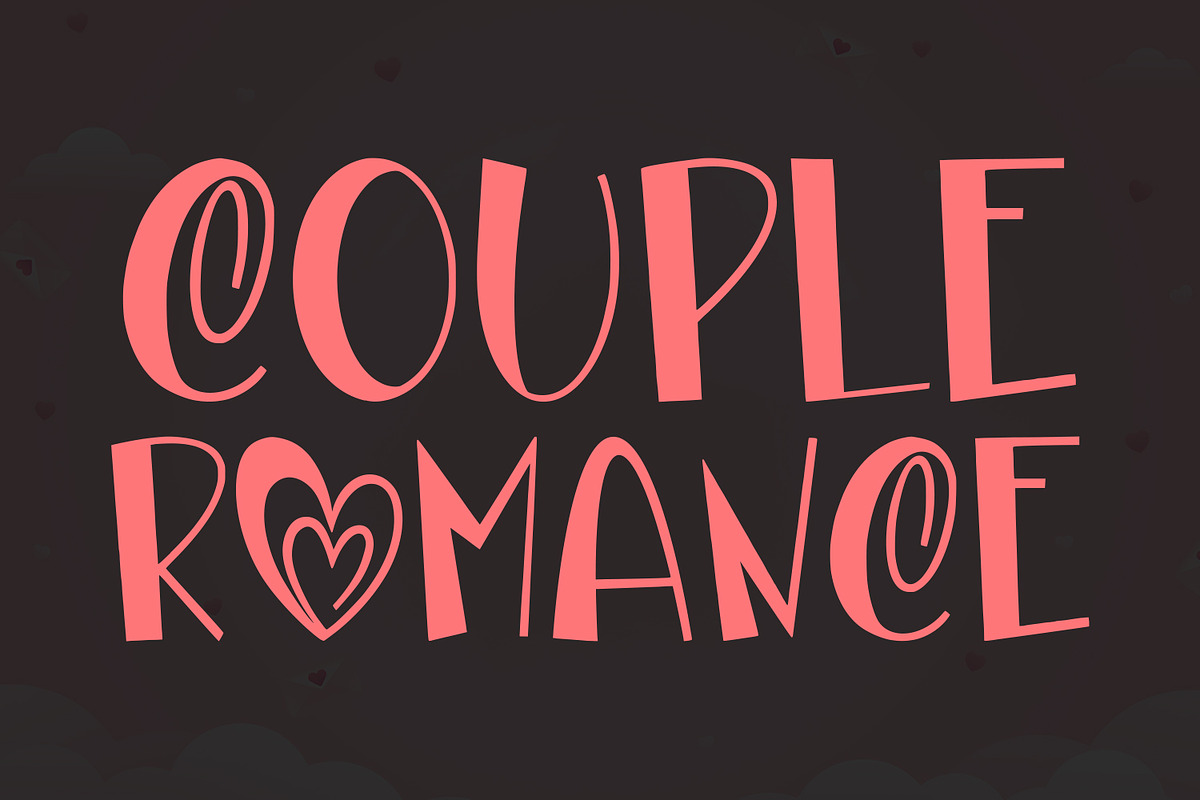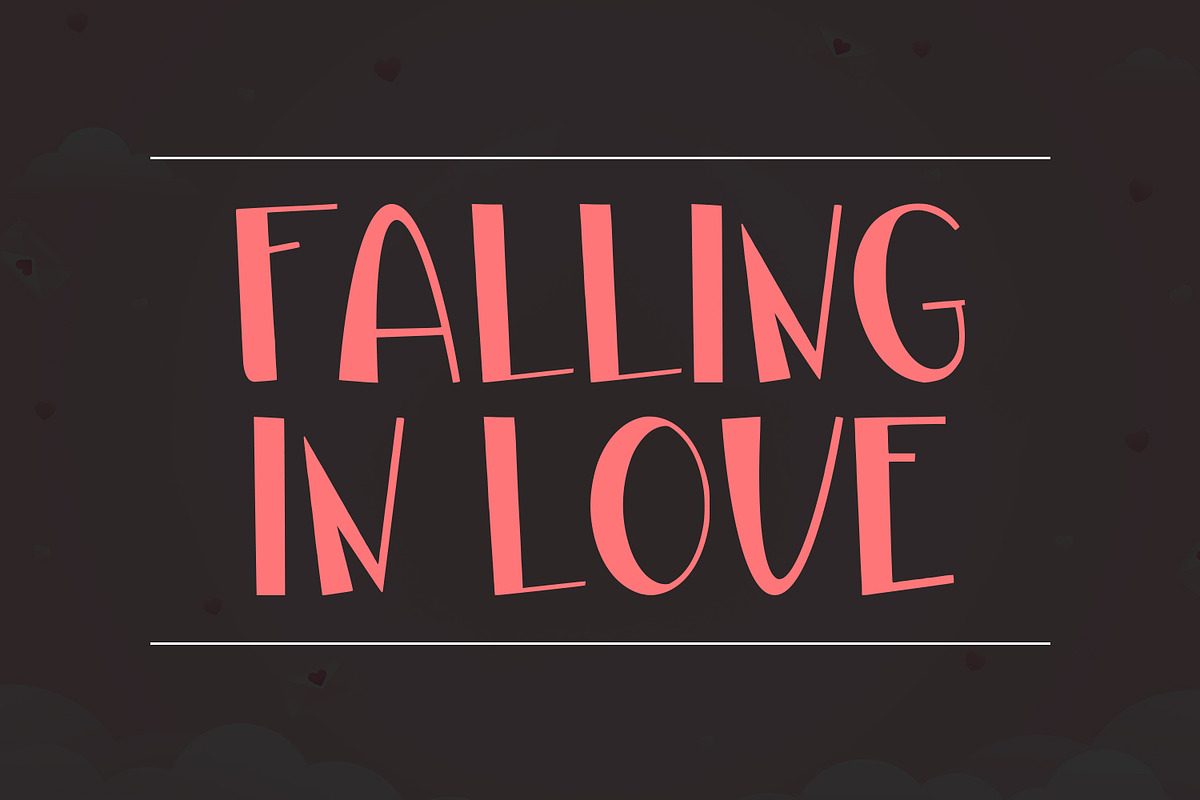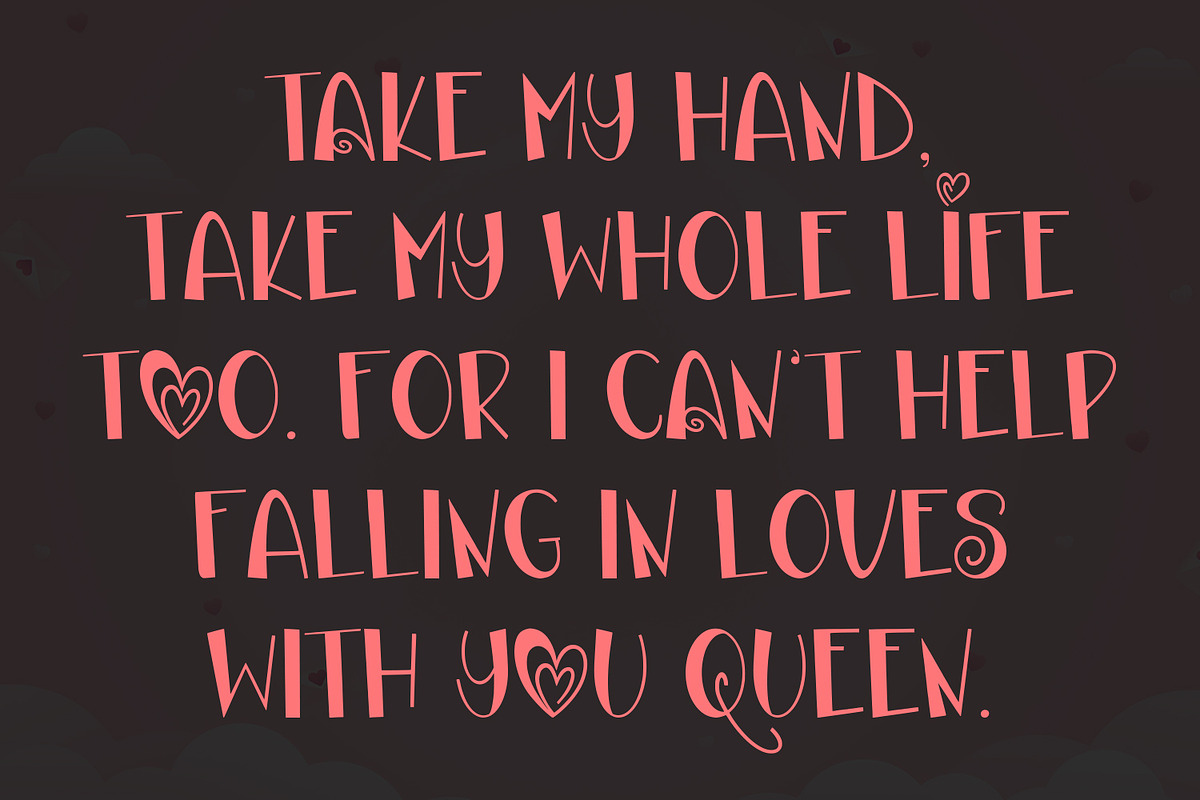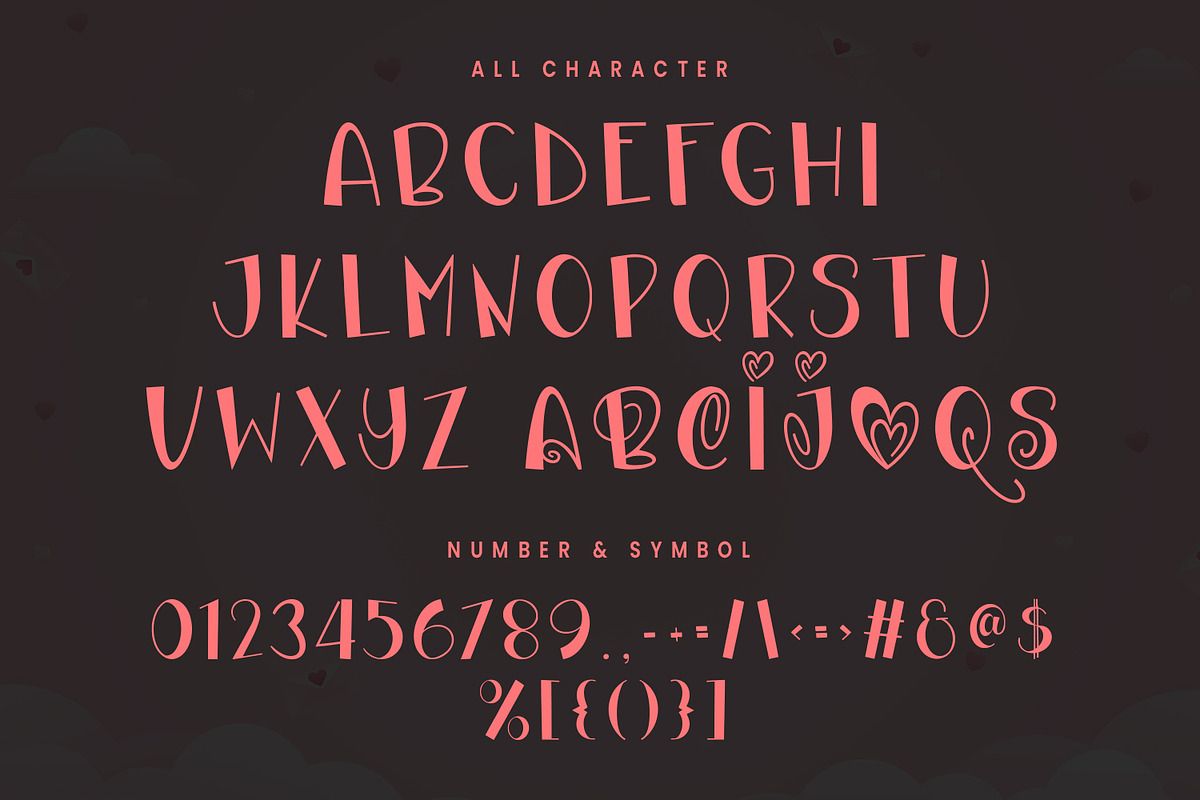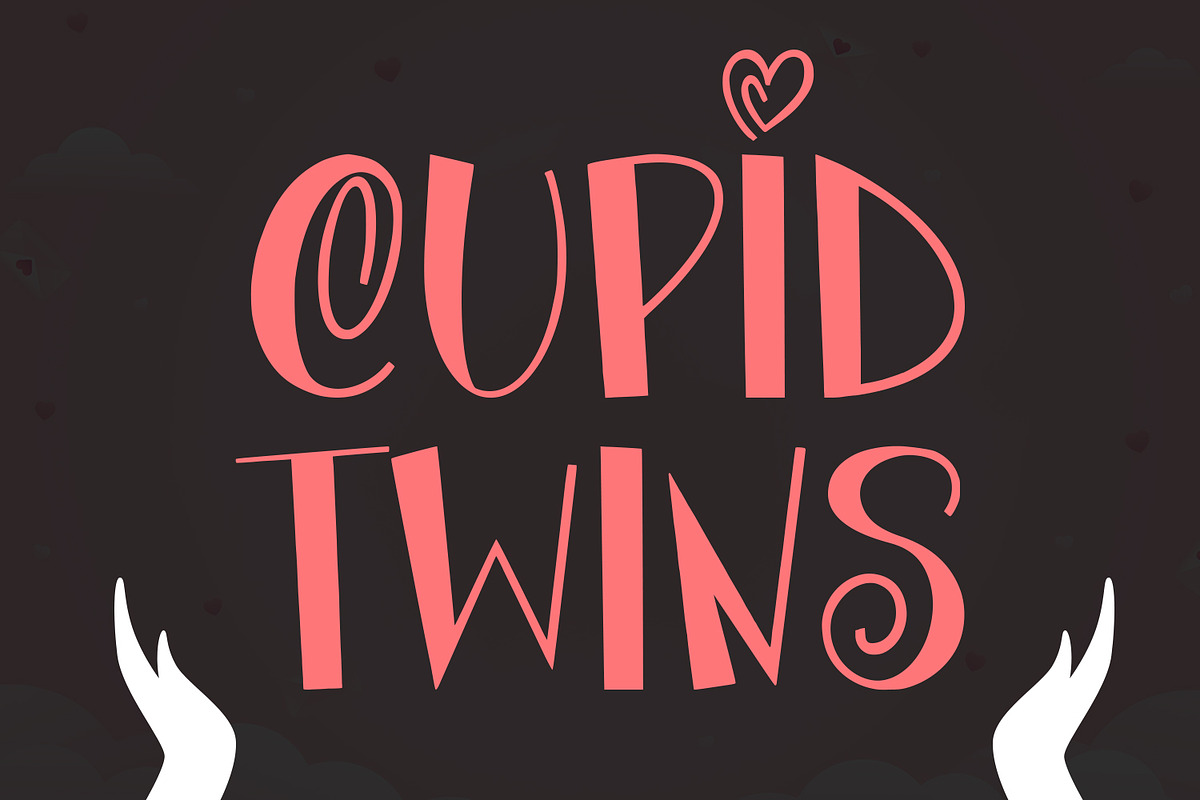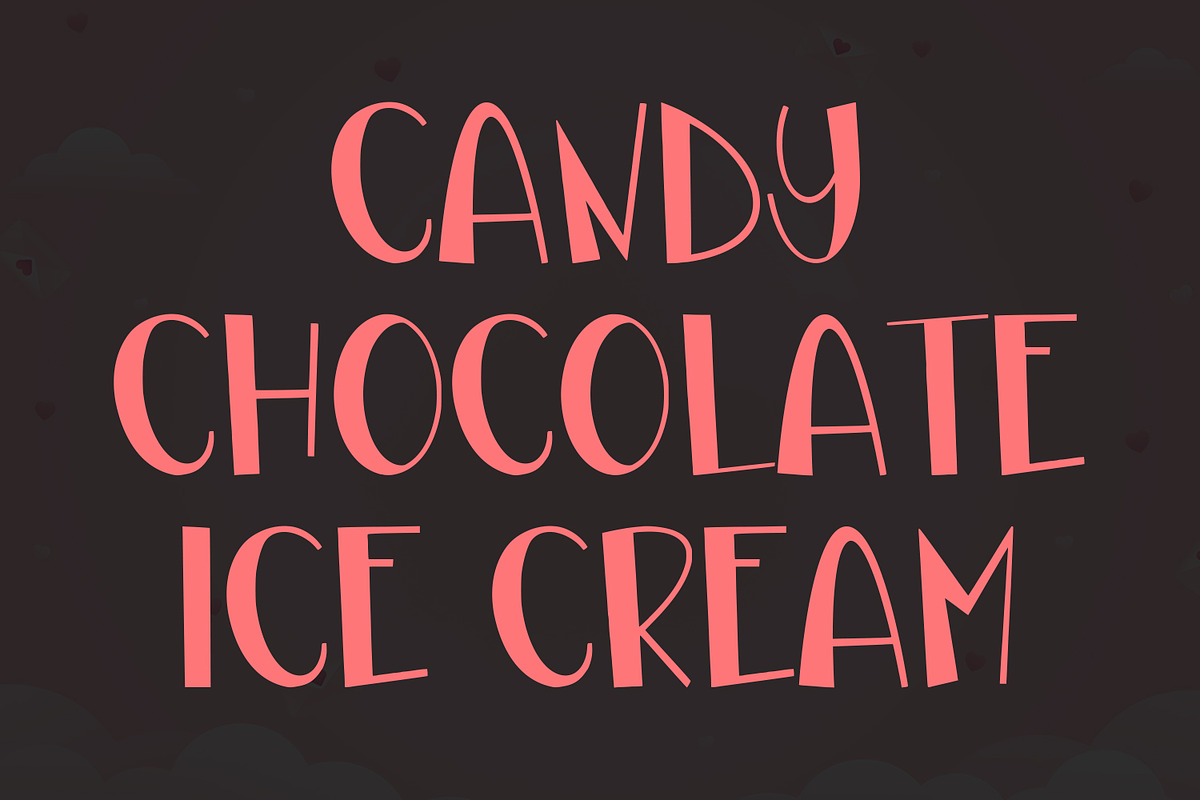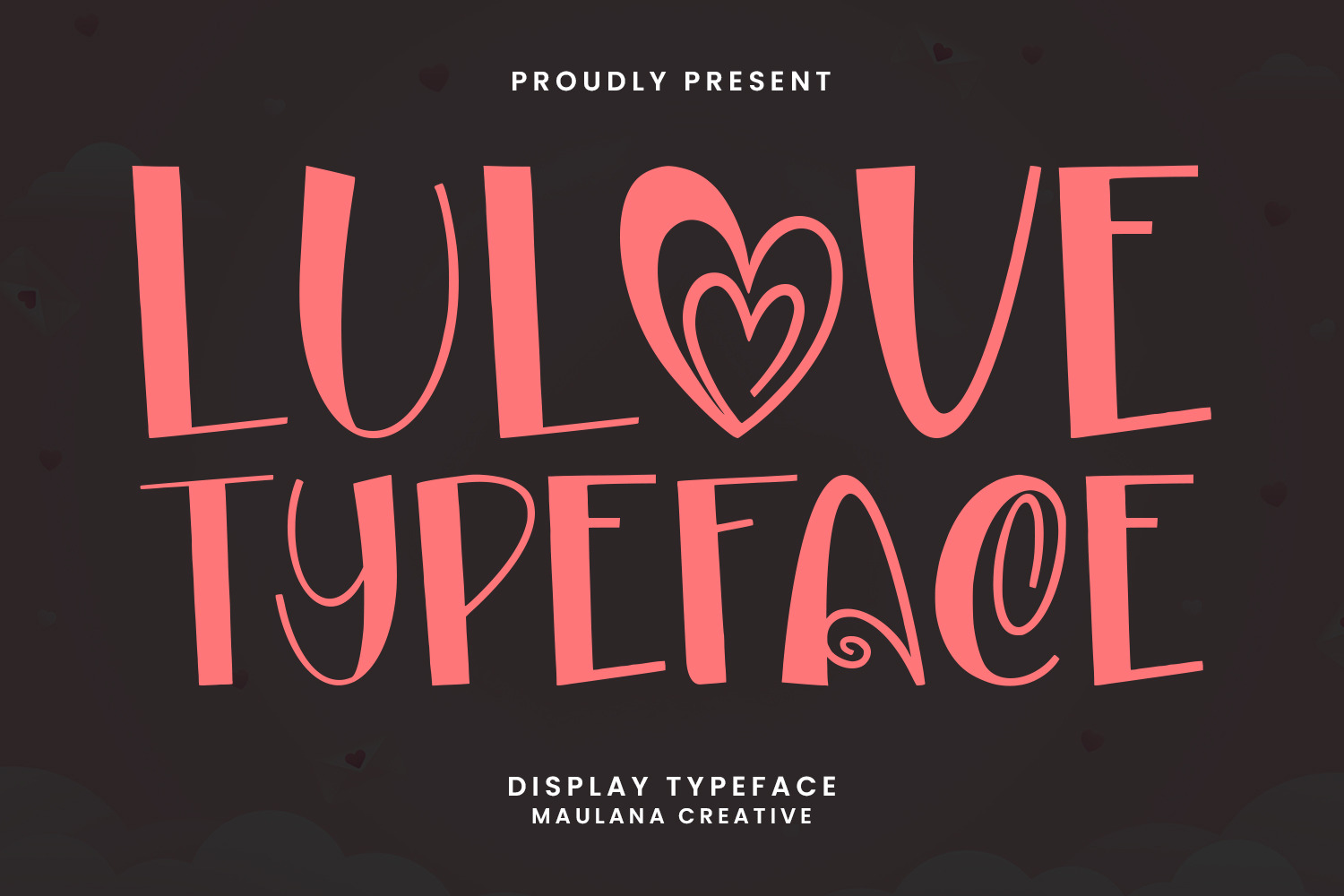
Lulove Display Typeface
Lulove Display Typeface.
Lulove display font. With sharp bold stroke, fun character with a bit of ligatures and alternates. To give you an extra creative work. Lulove display font support multilingual more than 100+ language. This font is good for logo design, Social media, Movie Titles, Books Titles, a short text even a long text letter and good for your secondary text font with script or serif. Make a stunning work with Lulove display font.